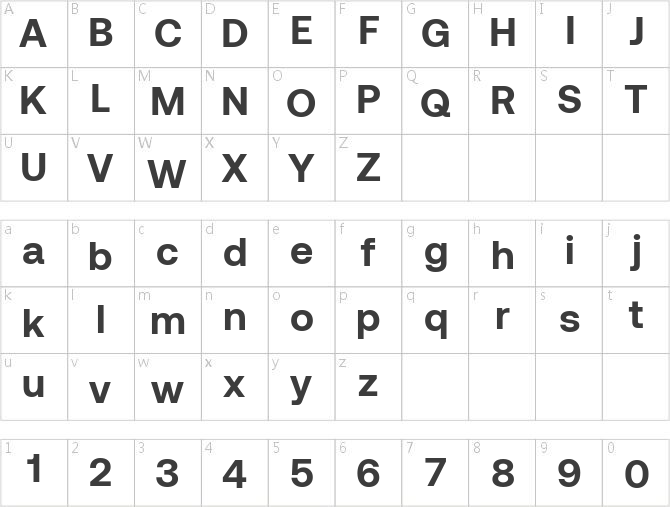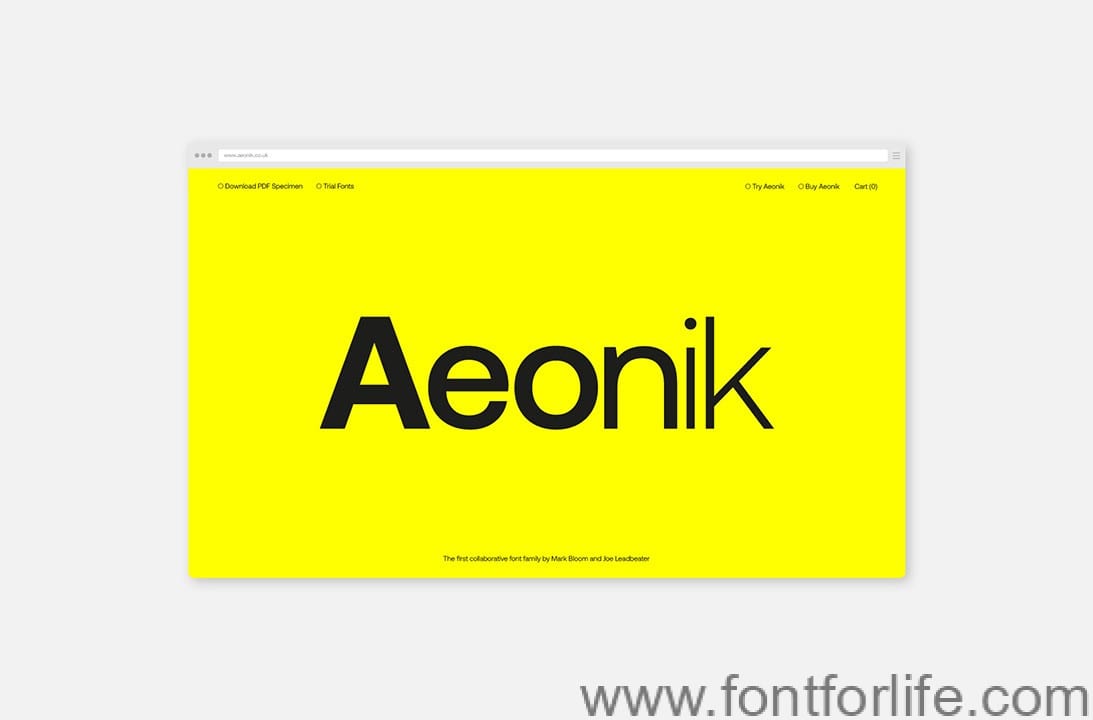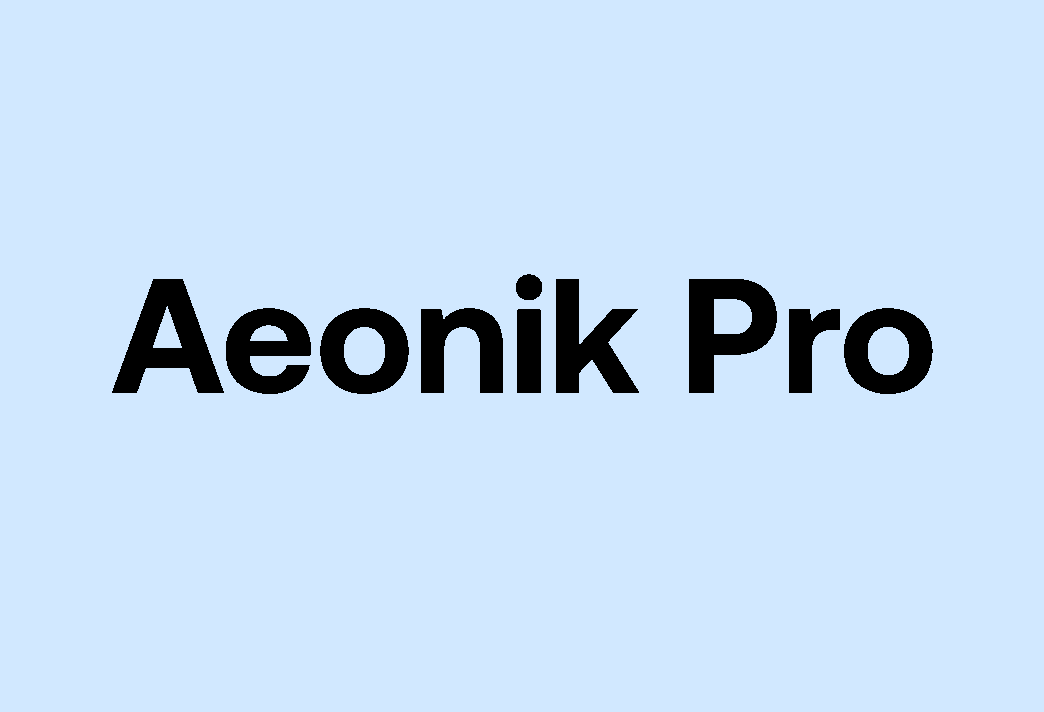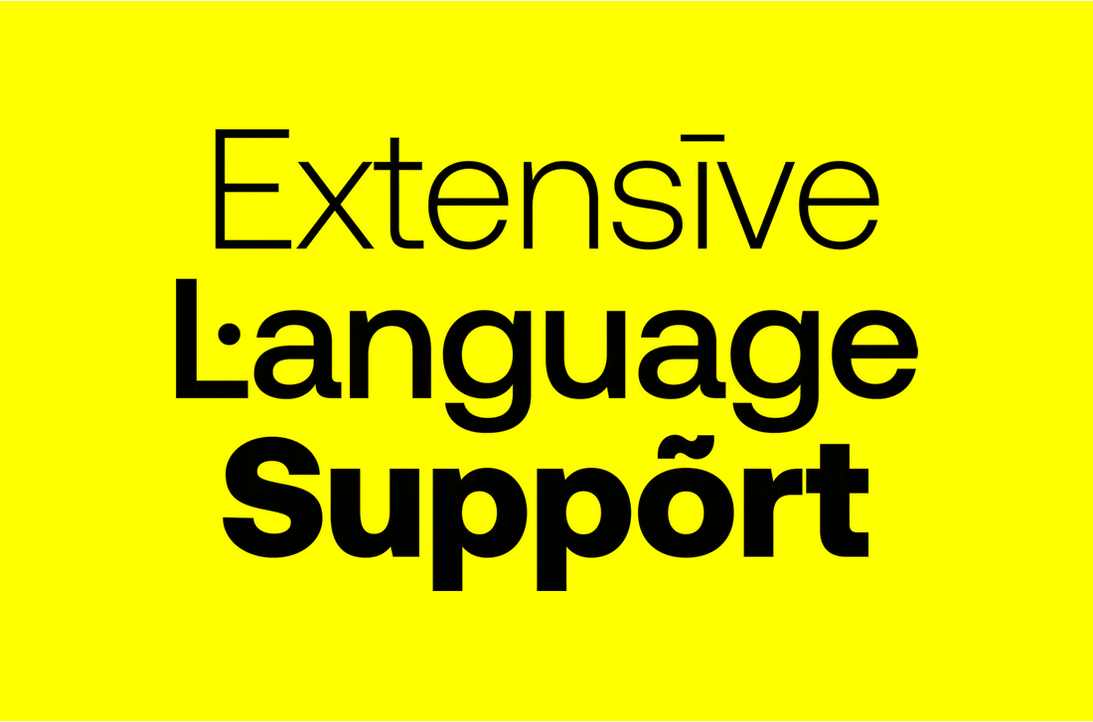
Aeonik Font Free Download - This typeface designed by mash creative is a geometric sans font family who dares the. Web aeonik sans serif font.
This typeface designed by mash creative is a geometric sans font family who dares the. Web aeonik sans serif font.